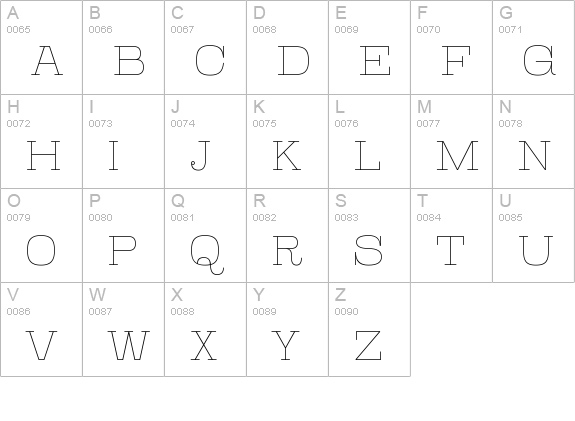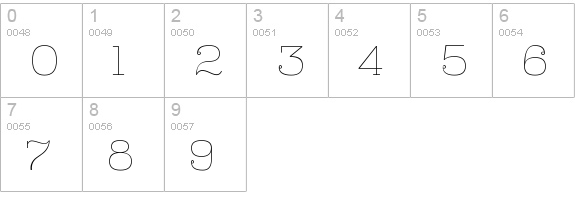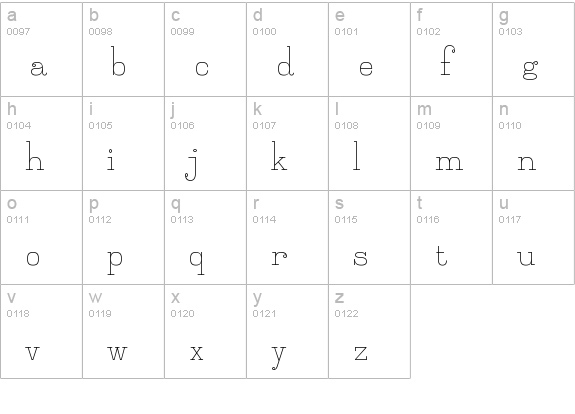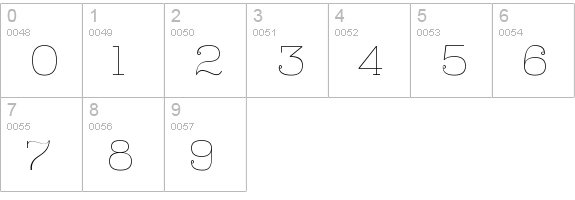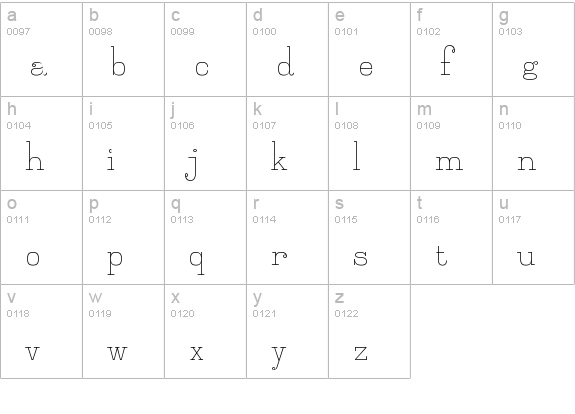
Jillsville Font Details
Introducing Jillsville font - a delightful display typeface that effortlessly combines elegance and playfulness. With its unique and charming design, Jillsville is perfect for adding a touch of whimsy to your projects. Whether you're creating invitations, posters, or branding materials, this versatile font will surely make a statement. Jillsville font is not only stylish and eye-catching but also incredibly easy to read, making it suitable for a wide range of design applications. Its sleek lines and graceful curves give off a modern yet friendly vibe that will surely captivate your audience. The best part? Jillsville font is completely free to download at FontsMarket.com. Yes, you read that right - you can enhance your designs with this stunning font at no cost at all. Don't miss out on the opportunity to elevate your projects with the charming Jillsville font today!